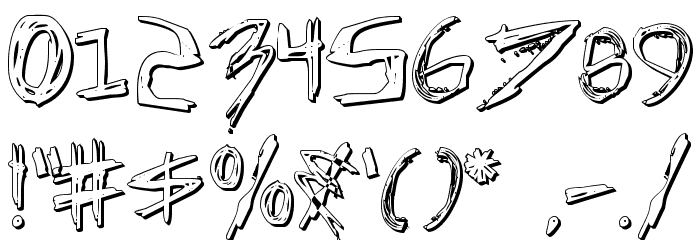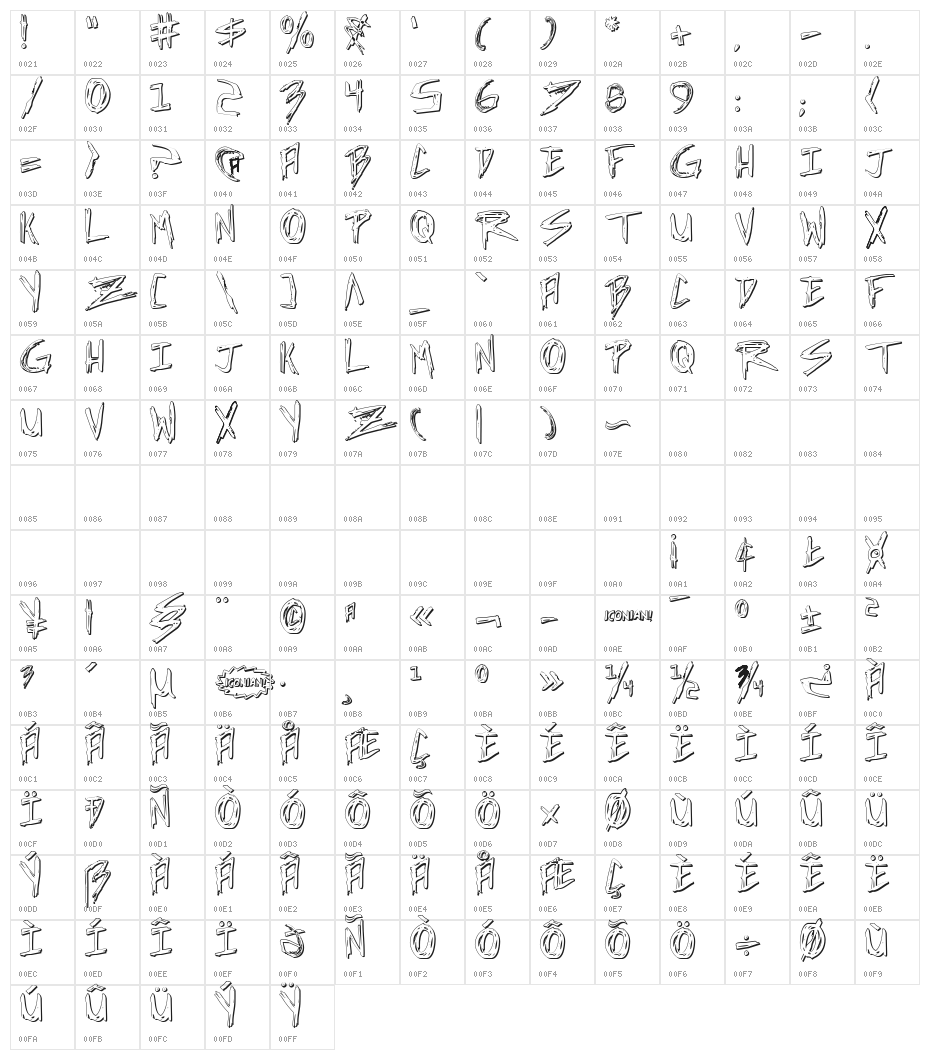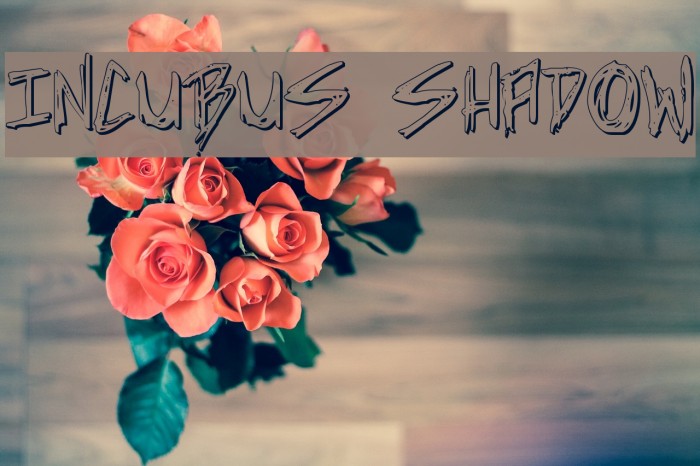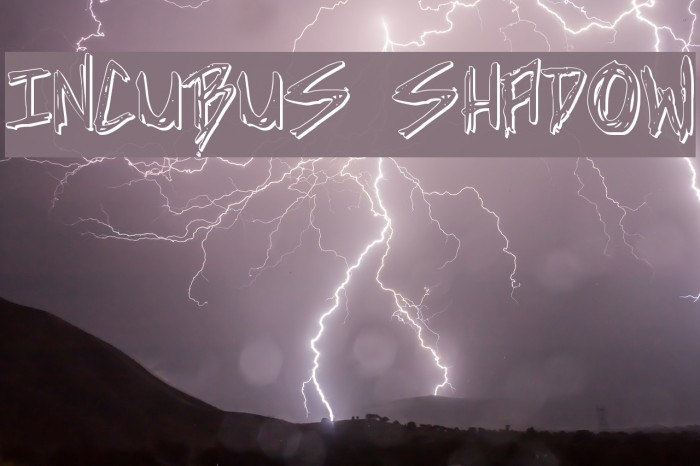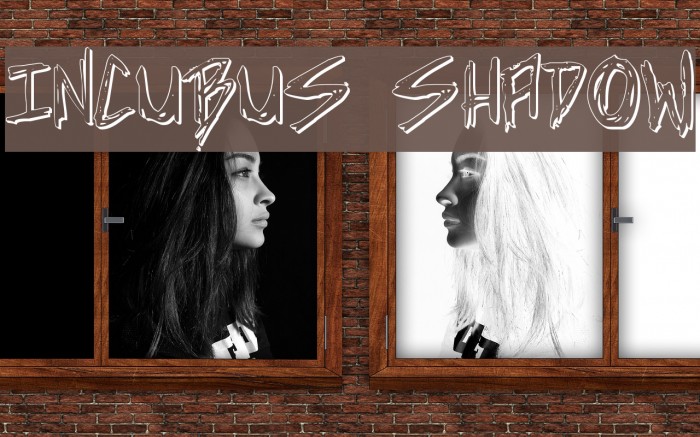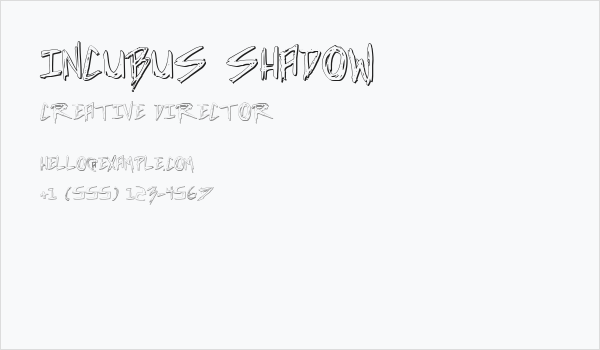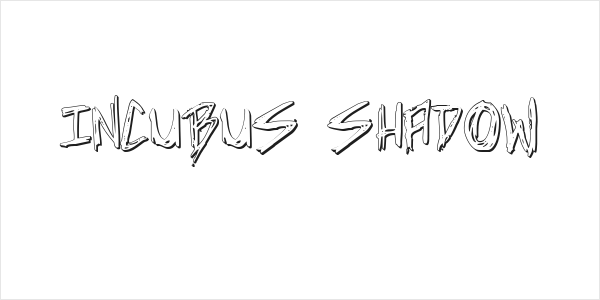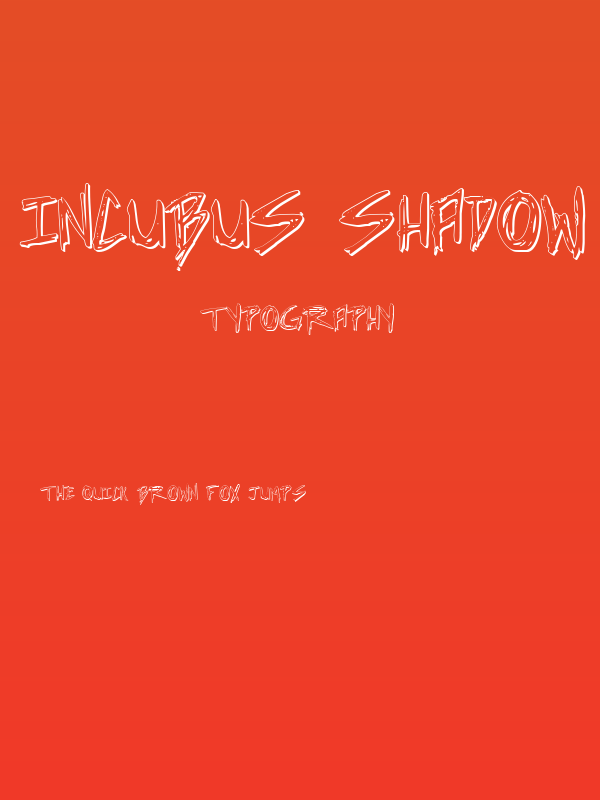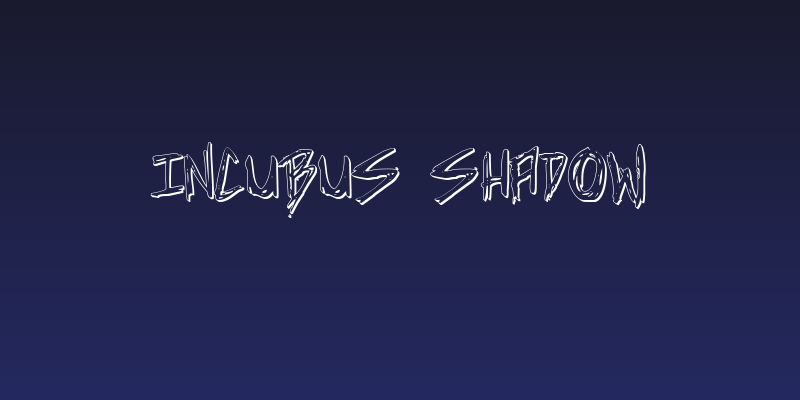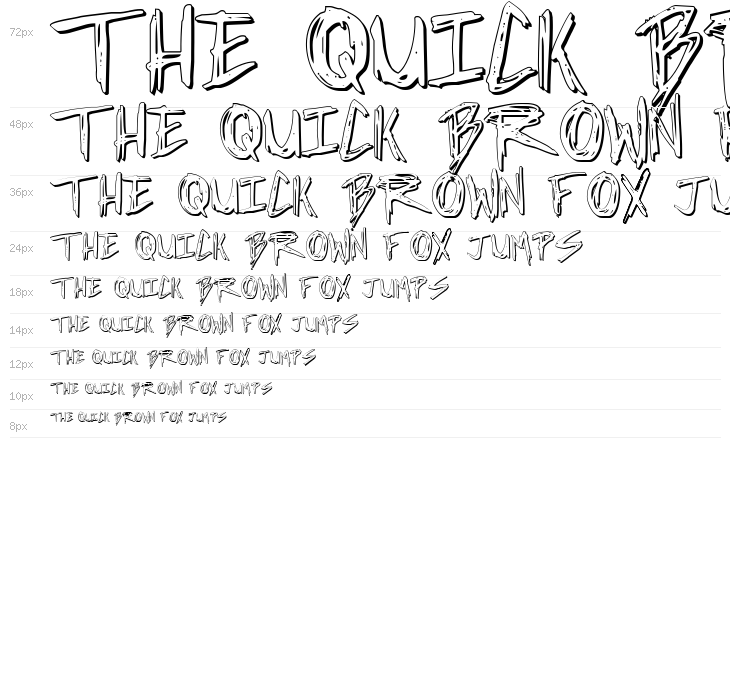
Incubus Shadow Font
Incubus Shadow Description
This font features a bold and edgy design with a hand-drawn appearance, characterized by sharp, jagged edges and a shadow effect that gives it a three-dimensional look. The letters are irregular and dynamic, conveying a sense of movement and energy. The uppercase and lowercase letters maintain a consistent style, while the numbers and special characters complement the overall aesthetic. This font is ideal for projects that require a dramatic and impactful visual presence, such as posters, album covers, or branding for edgy or alternative products.
| Proposed Projects | Posters, album covers, edgy branding, alternative product packaging. |